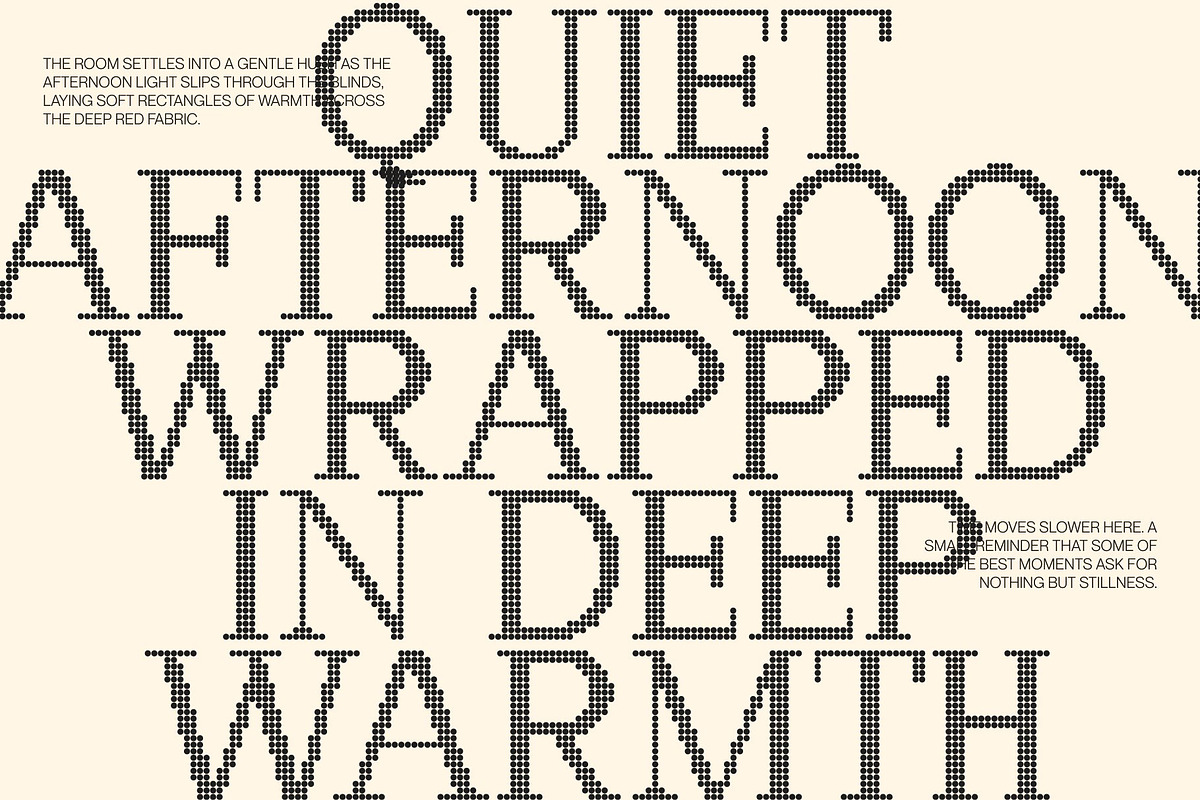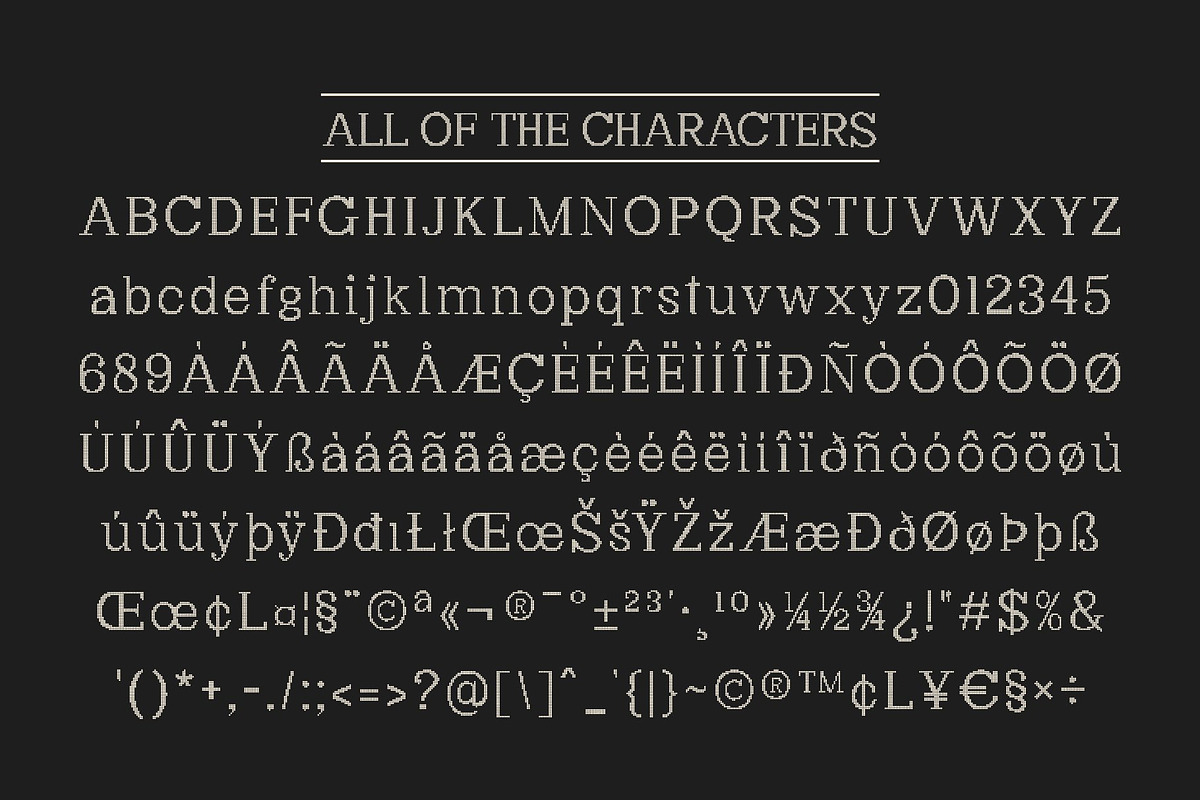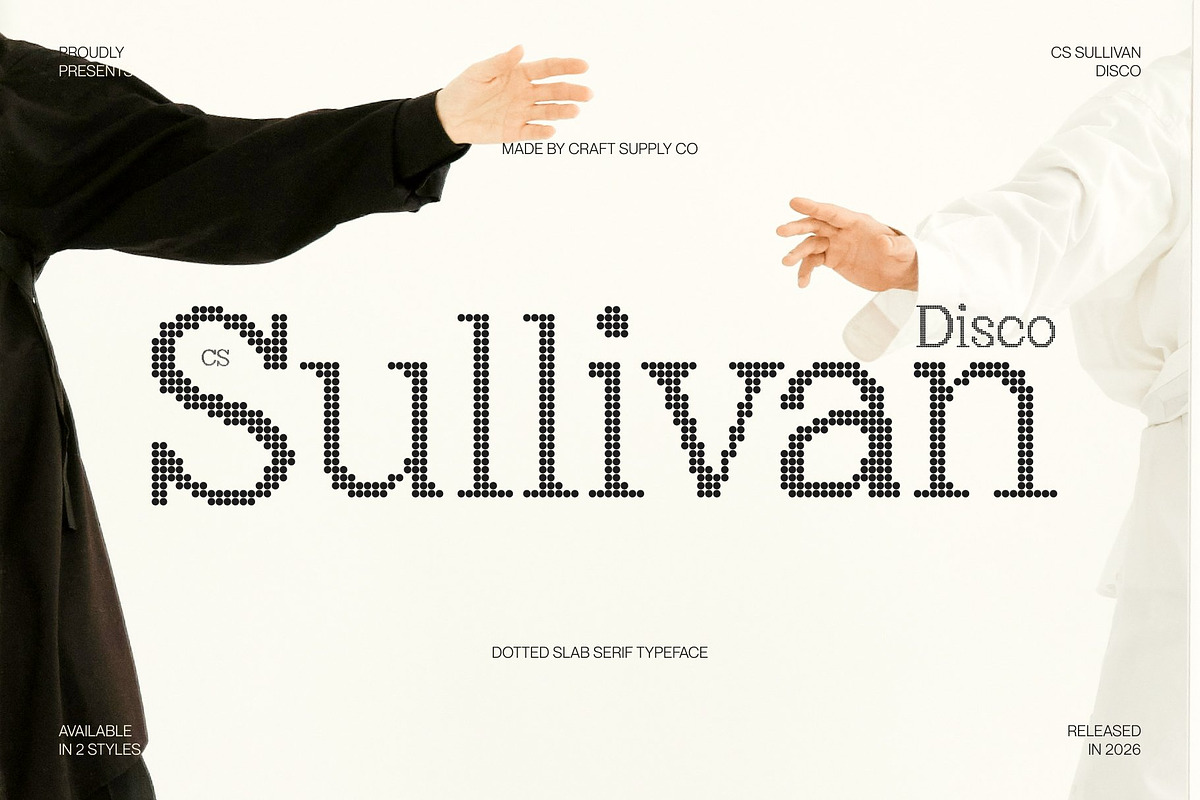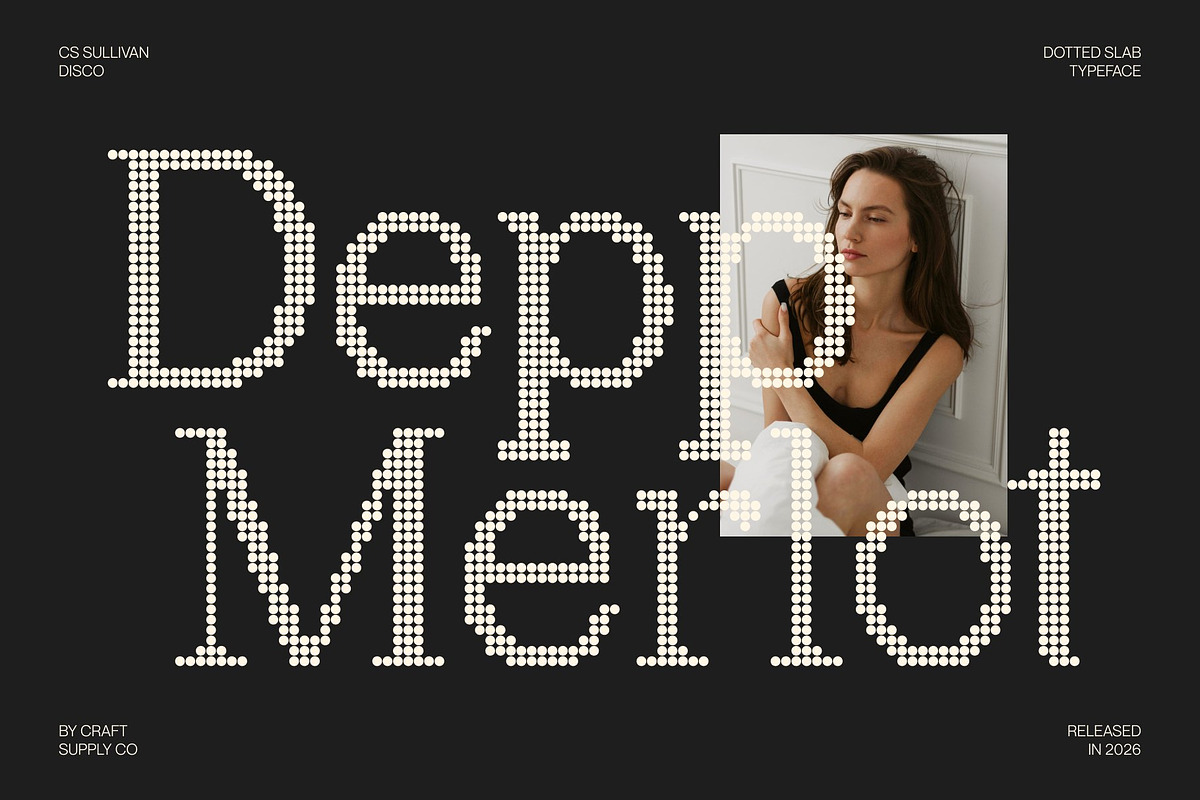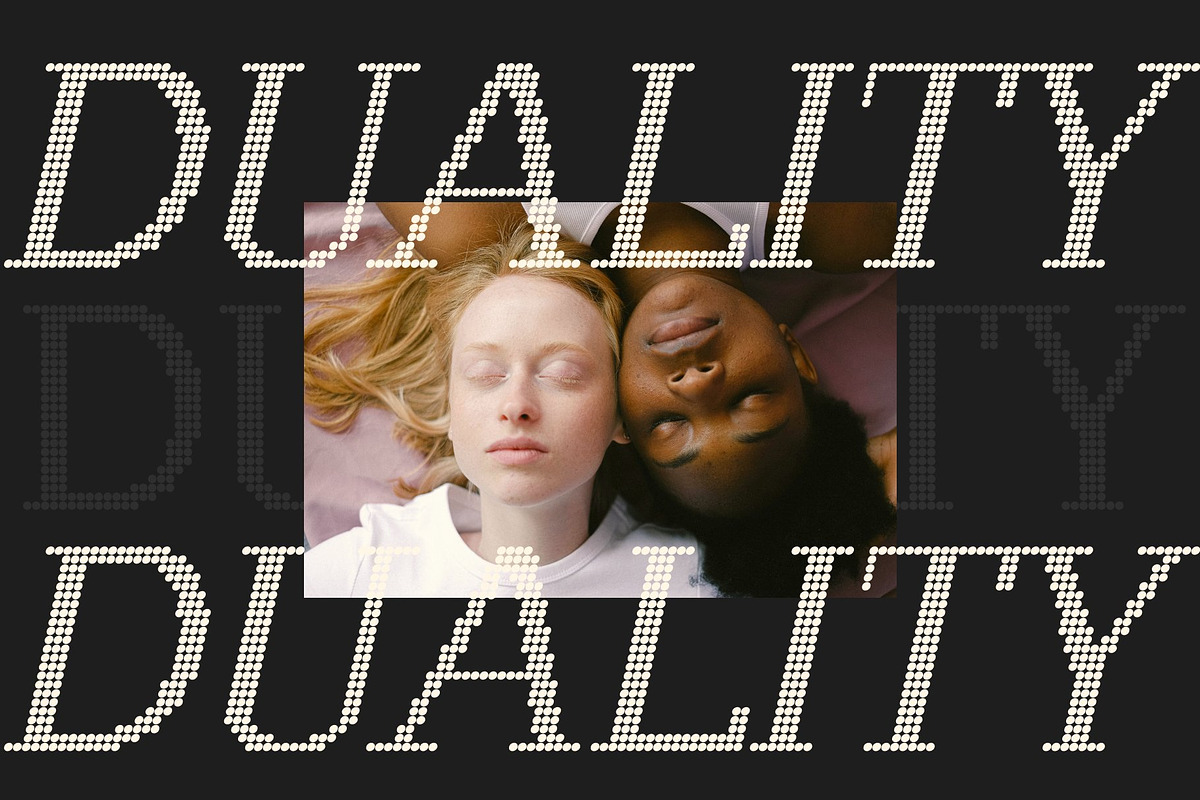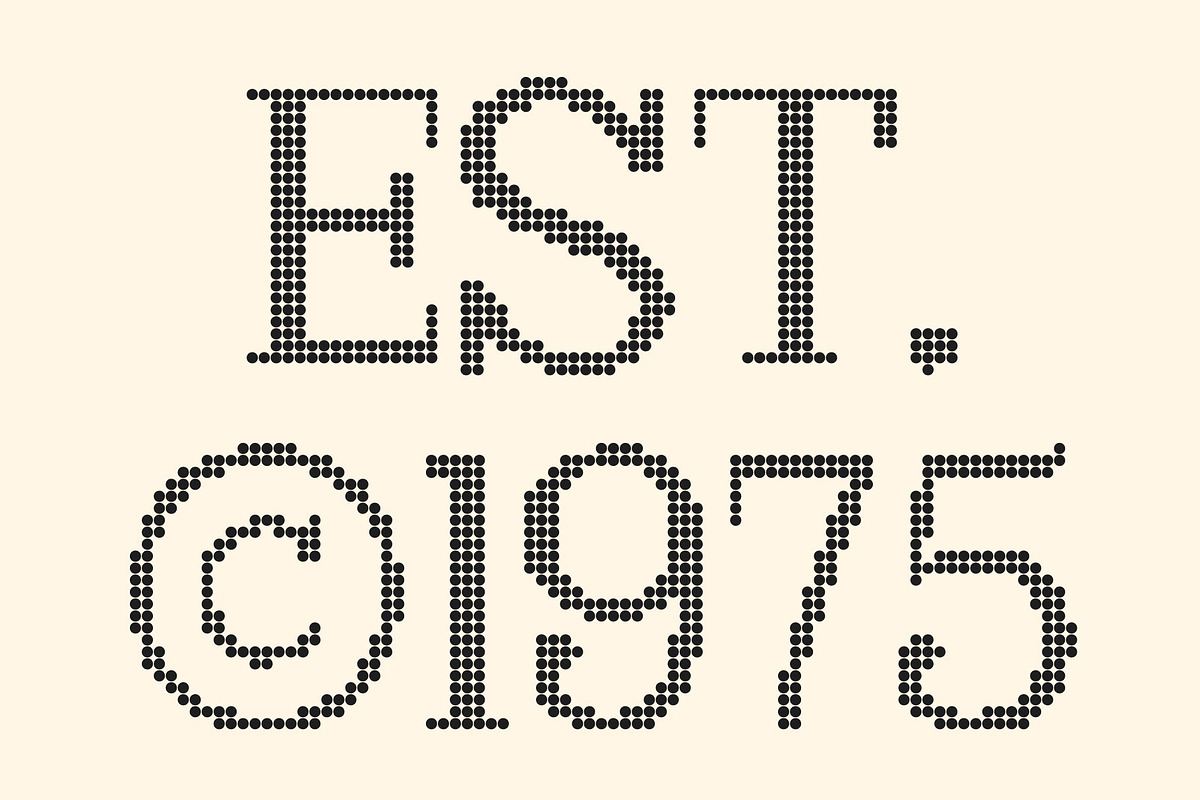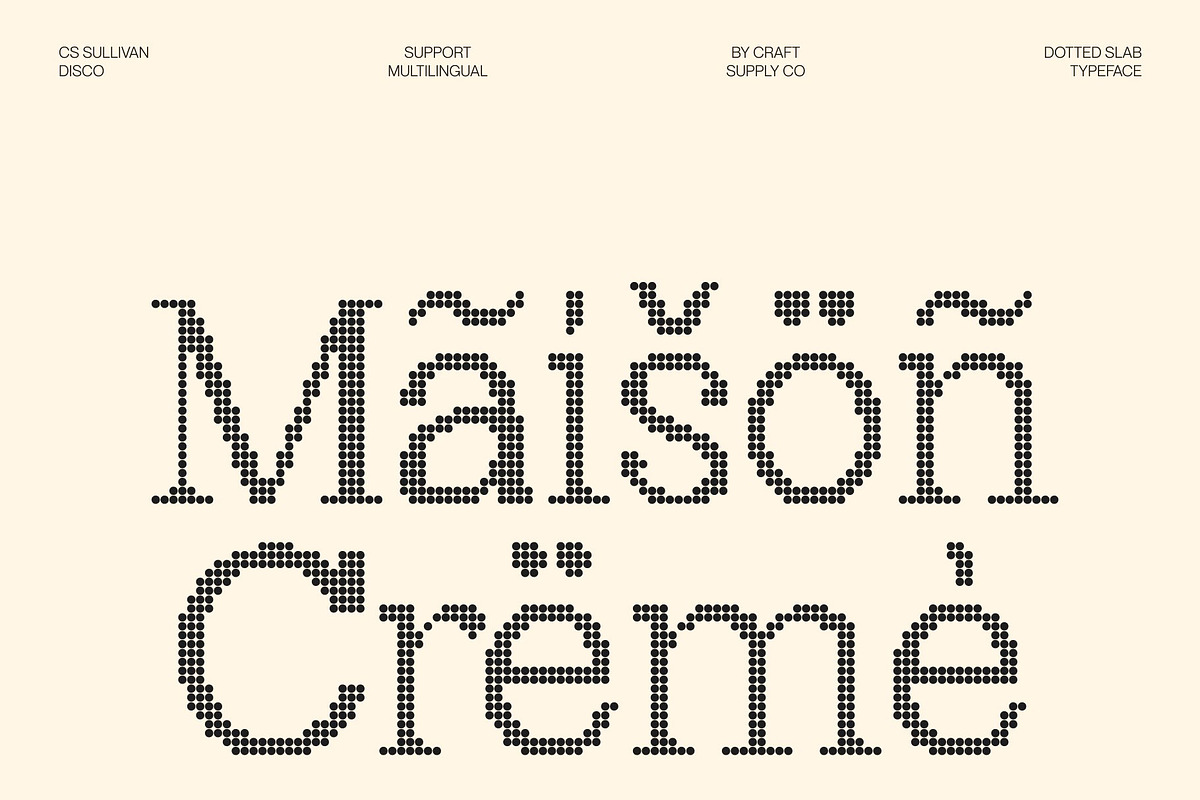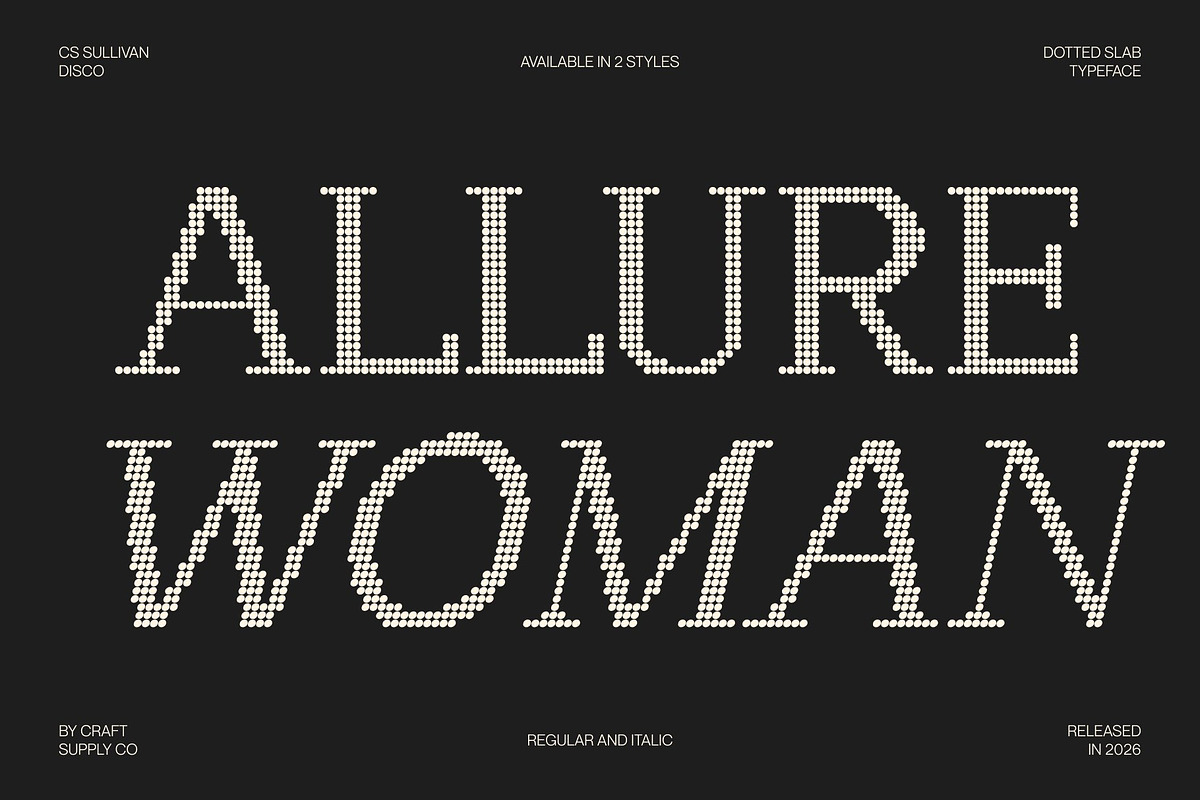
CS Sullivan Disco
CS Sullivan Disco – Modern Serif Font: Where Classic Form Meets Modern Precision
Refined Serif Elegance with Disco Sparkle This reimagines a modern serif with a vibrant dotted texture inspired by disco lights. The clean, slender letterforms retain their refined structure while the dotted detailing introduces rhythm, glamour, and celebratory charm turning sophistication into something lively and eye-catching.
Professional Balance with Playful Shine Built on a foundation of precision and harmony, this font keeps its professional tone while gaining a cheerful personality. The contrast between elegant serif shapes and sparkling dot details creates a unique balance of luxury and fun, perfect for designs that want to feel polished yet expressive.
Timeless Form with Contemporary Energy The sleek proportions and subtle contrast ensure excellent readability across print and digital media. The disco styling adds movement and vibrancy, giving classic typography a fresh and modern voice without losing its timeless appeal.
Perfect for Branding, Editorial, and Luxury Projects This font shines in fashion branding, editorial layouts, posters, event graphics, and premium packaging. It’s an ideal choice for projects that want to blend elegance, confidence, and festive energy into one distinctive visual identity.
CS Sullivan Disco Regular
CS Sullivan Disco Italic